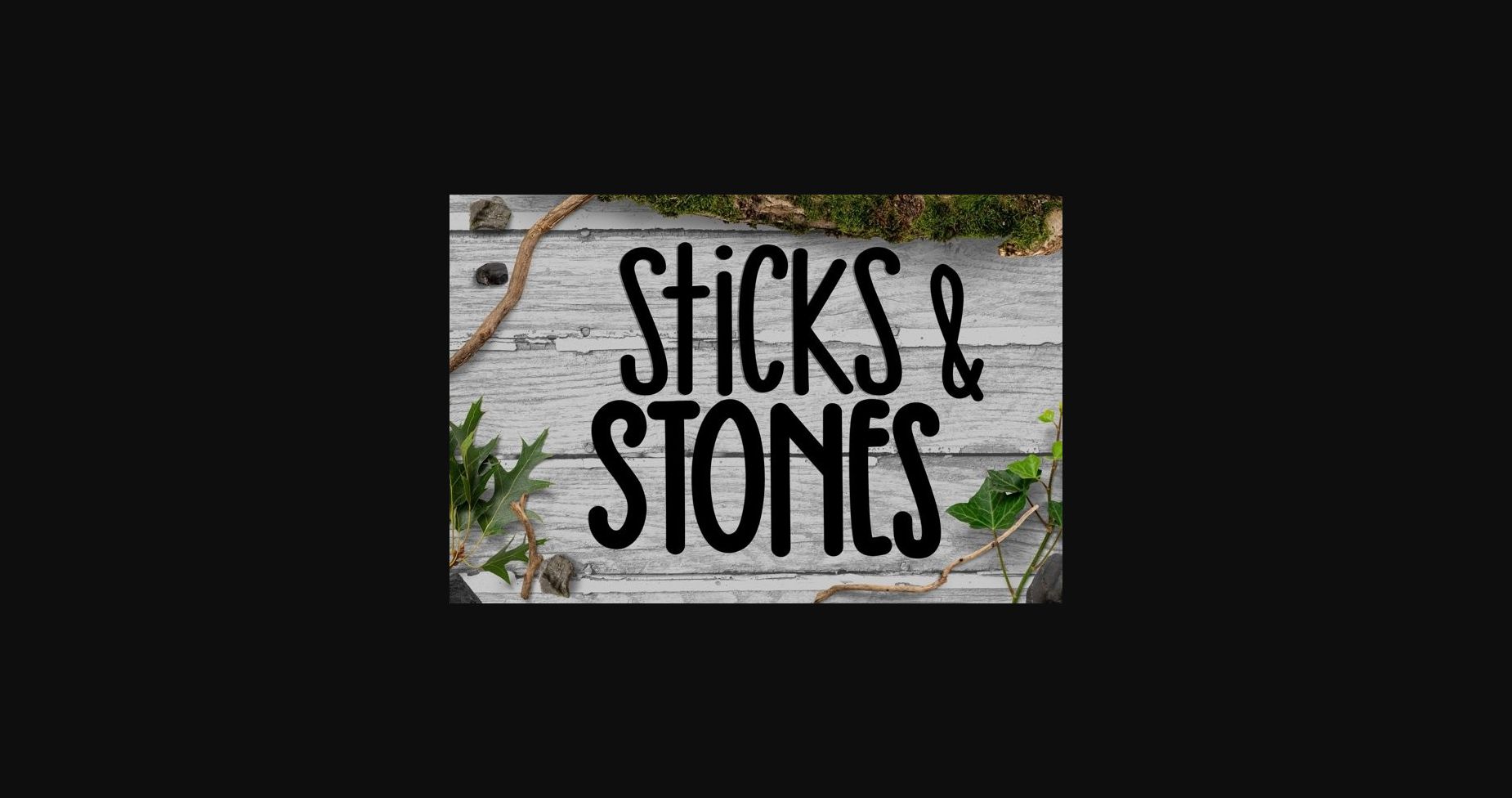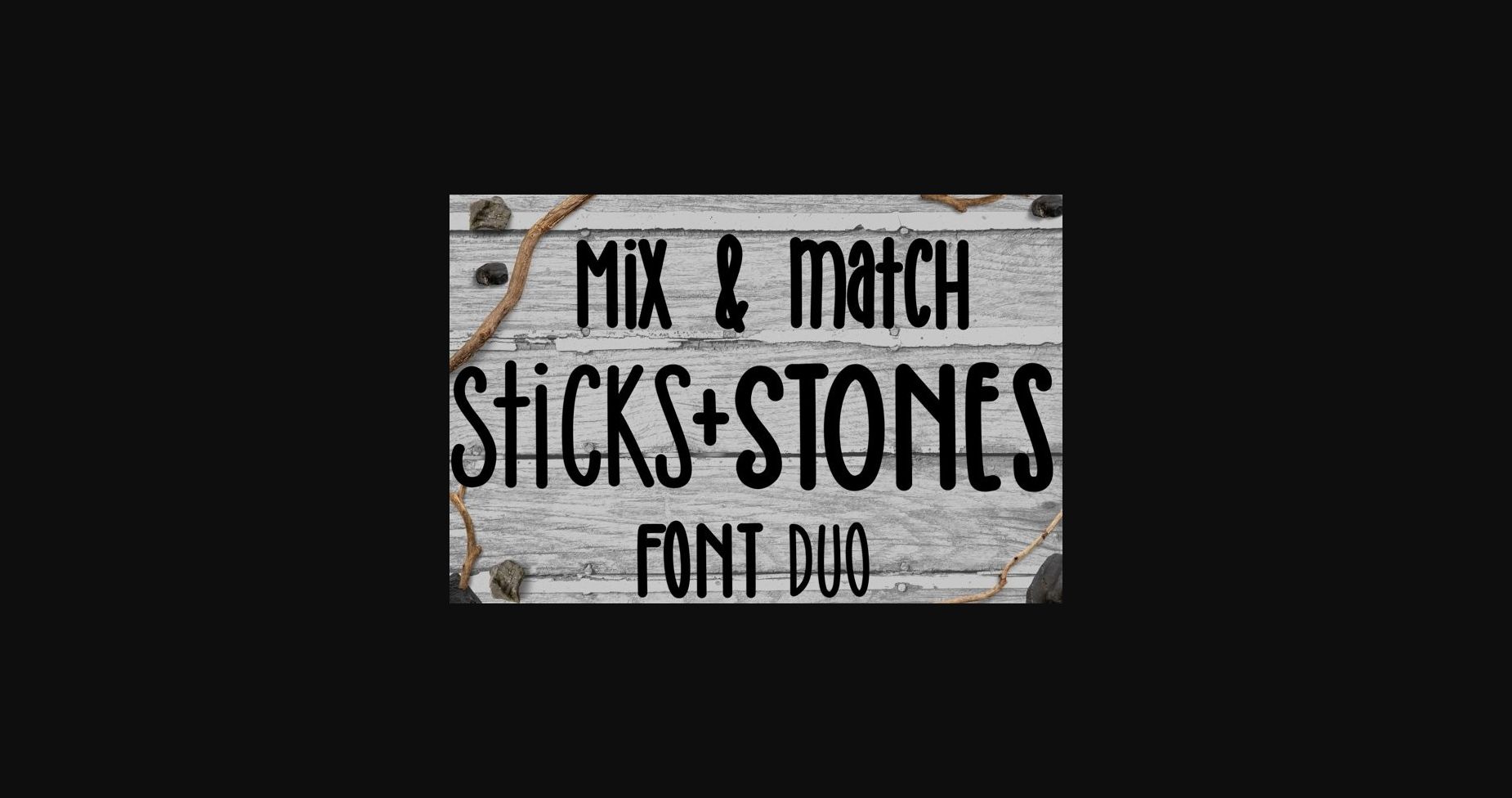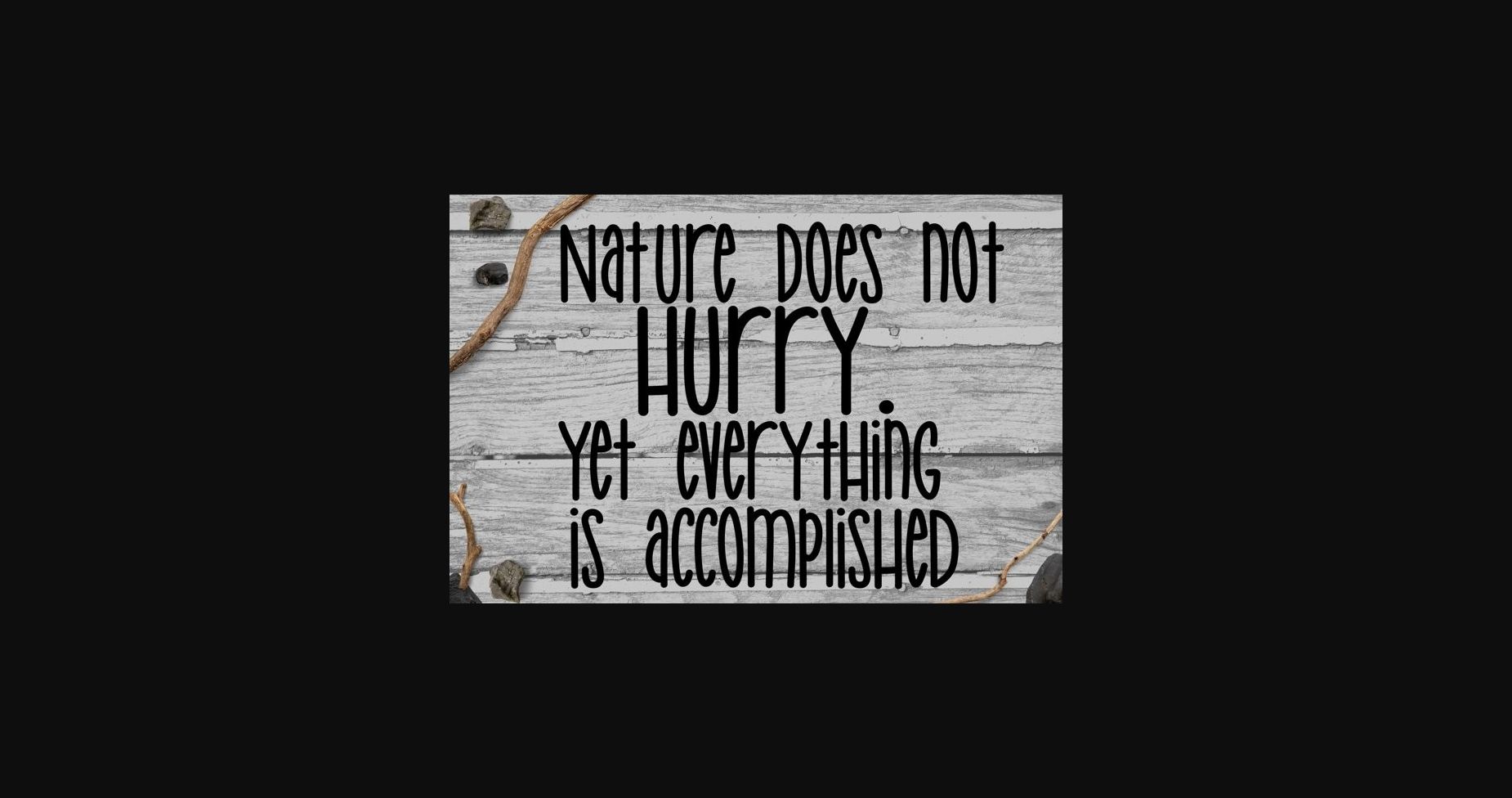
Sticks and Stones Duo Font
About Sticks and Stones Duo Font
Sticks and Stones is a cute and quirky handwritten sans serif font that embodies a playful and carefree spirit. Its irregular letterforms and rough edges are inspired by the natural world, giving it a sense of authenticity and charm. The font’s simple and clean design creates a sense of legibility and versatility, making it perfect for anything from logos to social media graphics. Sticks and Stones’ fun and whimsical style is sure to add a touch of personality and uniqueness to your project.